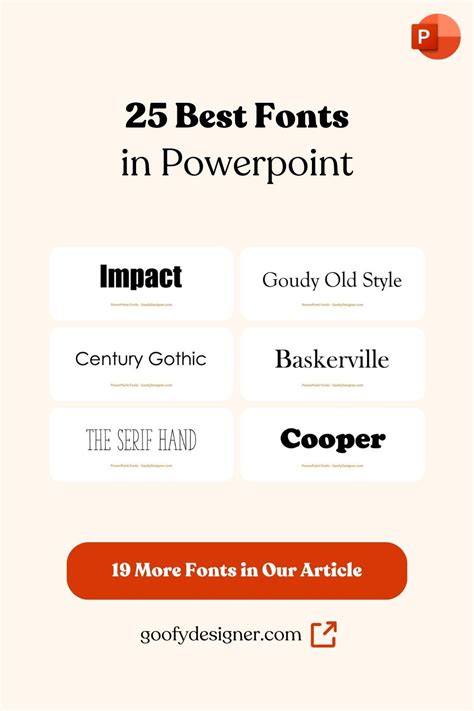
Good Fonts For Presentations. Helvetica is a basic sans serif font with a loyal user base. Originally created in 1957, helvetica comes.
Web best fonts to use for powerpoint 1. Despite the font size you choose, not all fonts display the same. Web best fonts for presentations and powerpoint 1. Originally created in 1957, helvetica comes. Web they include arial, calibri, helvetica, verdana, lucida sans, tahoma and century gothic, etc. Script and decorative fonts seek to emulate handwriting and are mostly reserved for special presentations. Helvetica is a basic sans serif font with a loyal user base. Futura is one of the popular sans.
Script and decorative fonts seek to emulate handwriting and are mostly reserved for special presentations. Web best fonts to use for powerpoint 1. Web best fonts for presentations and powerpoint 1. Web they include arial, calibri, helvetica, verdana, lucida sans, tahoma and century gothic, etc. Despite the font size you choose, not all fonts display the same. Originally created in 1957, helvetica comes. Futura is one of the popular sans. Script and decorative fonts seek to emulate handwriting and are mostly reserved for special presentations. Helvetica is a basic sans serif font with a loyal user base.